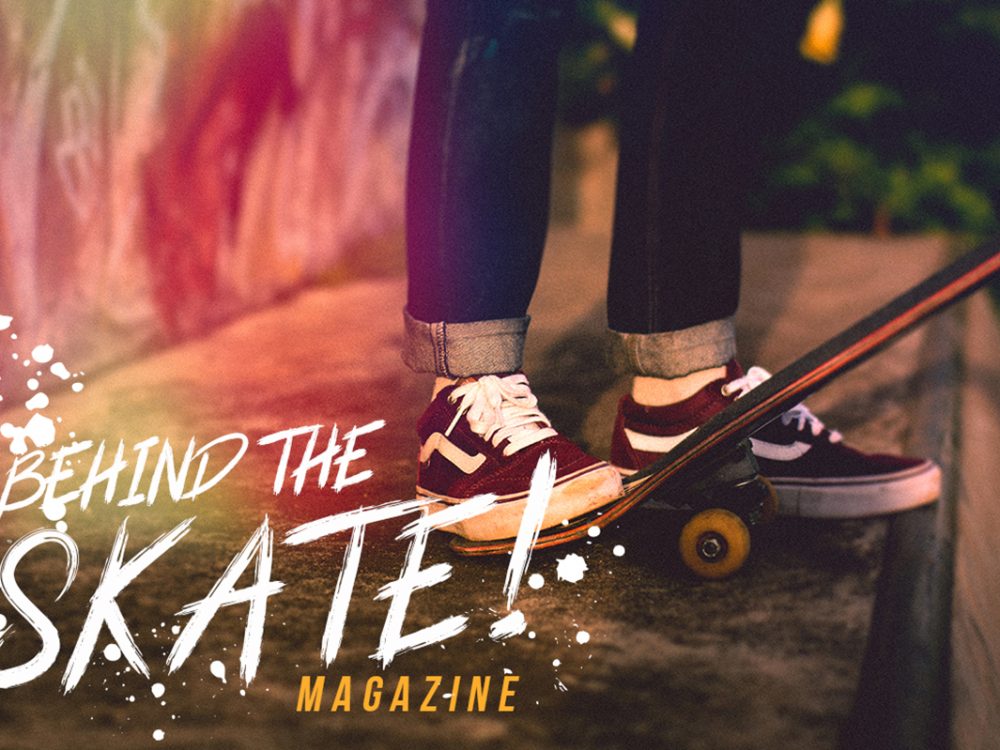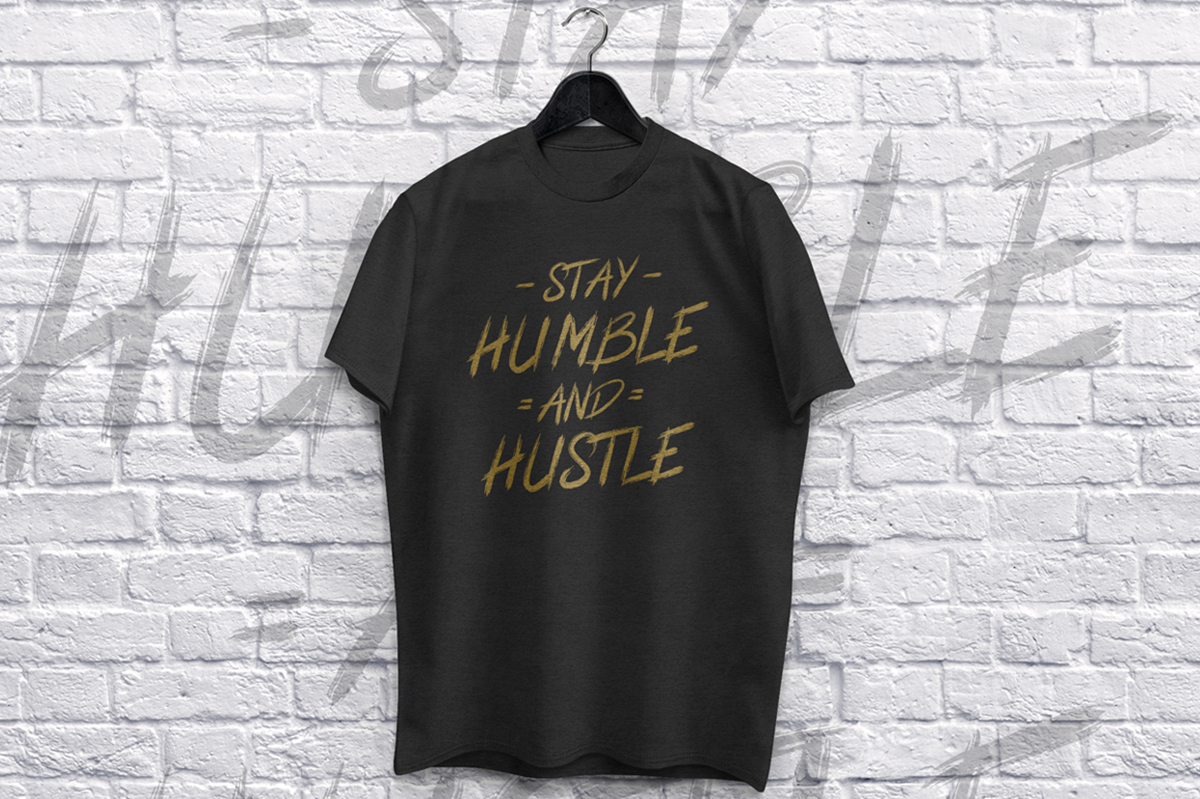
Granite Brush Free Font
Granite Brush Free Font s an interesting handwritten typeface that mimics brush writing and stands out for its modern calligraphic style among other fonts. This font is very suitable for creating various projects that require a scripted handwritten font. Use this font to create memorable romantic posters, wedding invitations, greeting cards, branding, flyers, t-shirt and pillow prints, and more. If you like it don’t forget to check out the full version.